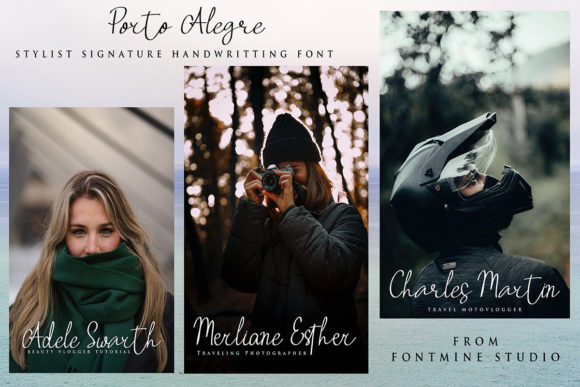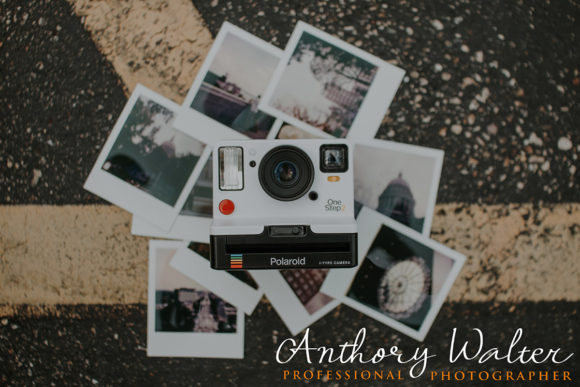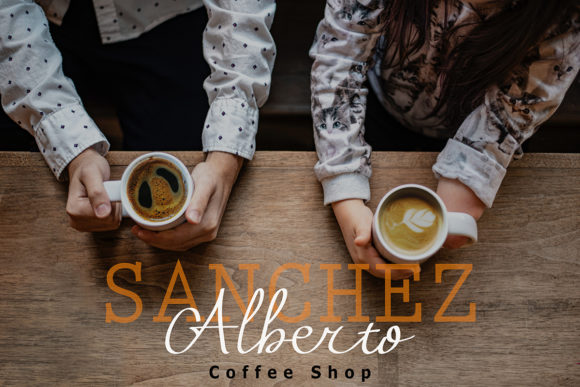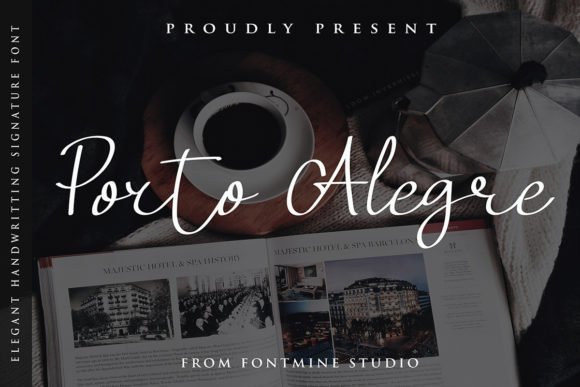
Introduction to Porto Alegre Font
Porto Alegre is an elegant and stylist signature handwritten font.
It is an ideal choice for watermark on photography, signature or logo design, flyer designs and more .